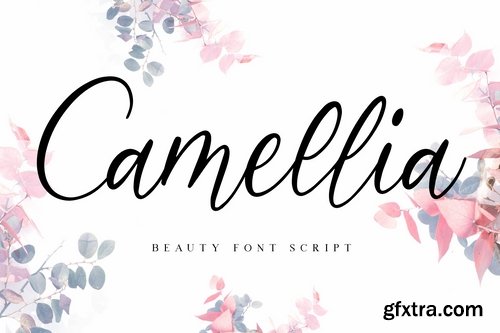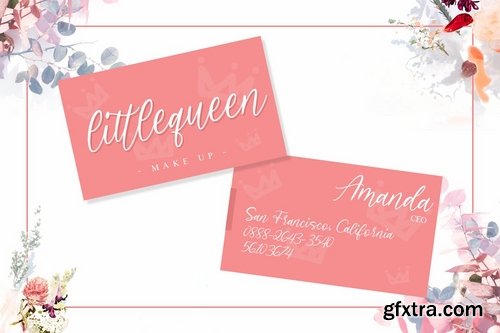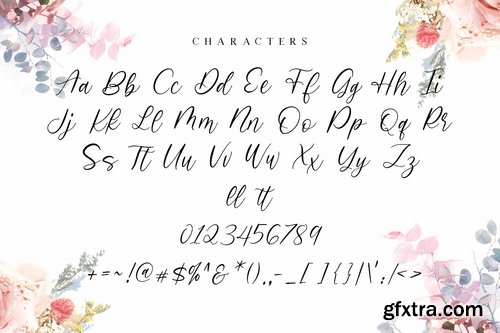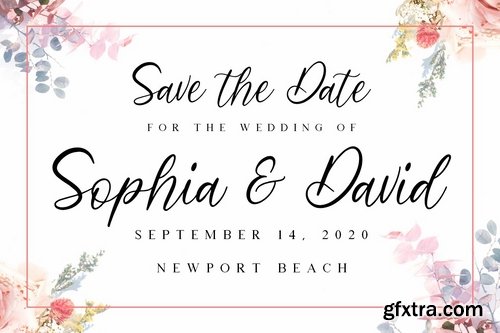
Are you looking for a simple and elegant handwriting font? We can help! Try to download our Camellia beauty script font. The font is suitable to use for casual purpose. Try to use it on Wedding invitation, photography, branding and signature to see the best of it :)